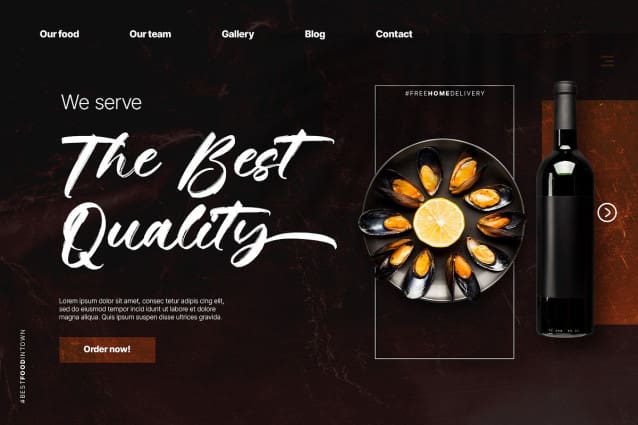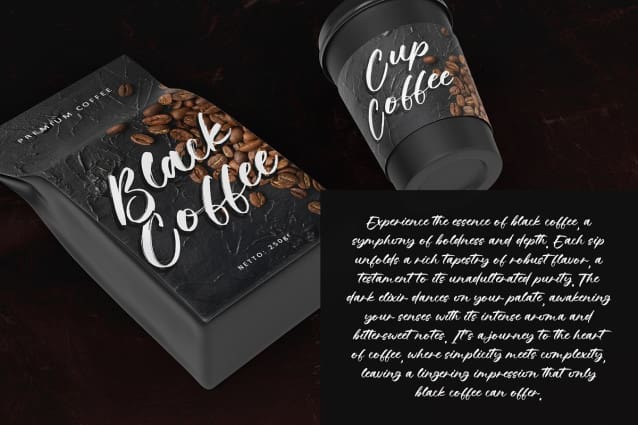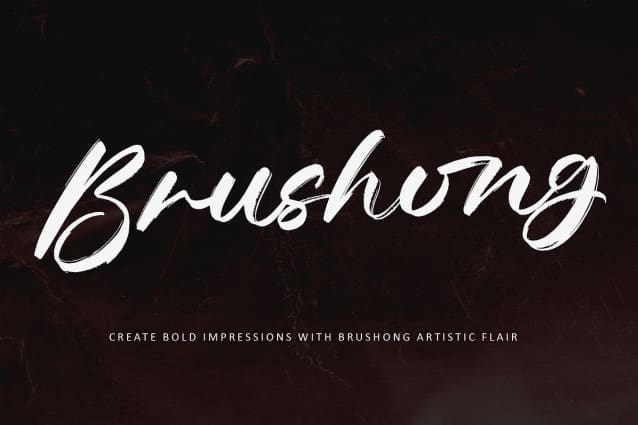
Brushong Brush Font
Brushong Brush Font, a natural brush script font that exudes energy and authenticity. With its dynamic strokes and organic texture, this font adds a raw and bold vibe to your designs. Perfect for logos, posters, packaging, and various projects that demand a strong, stylish impression. Its smooth flow and expressive glyphs make it ideal for conveying character and vigor. PUA encoding ensures easy access to all the unique features. Elevate your designs with Brushong Brush, a font that effortlessly infuses natural charm into your creative work.